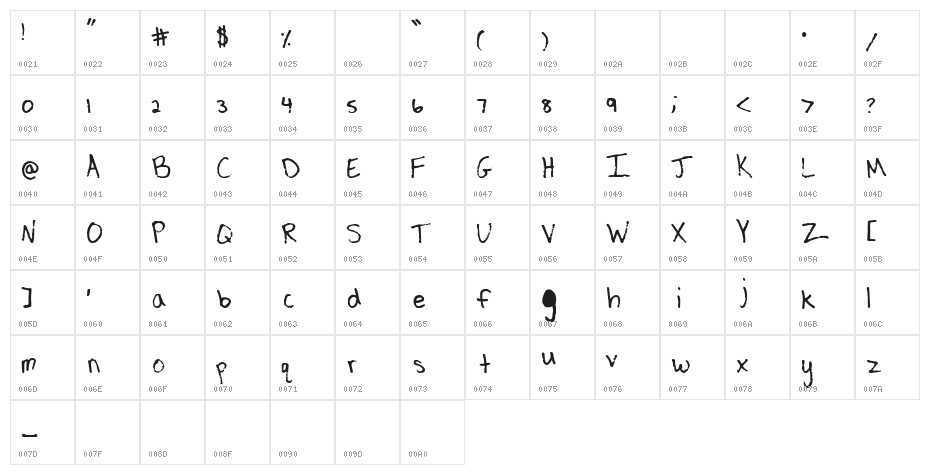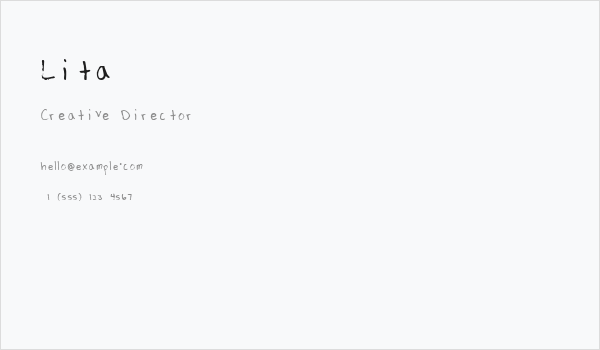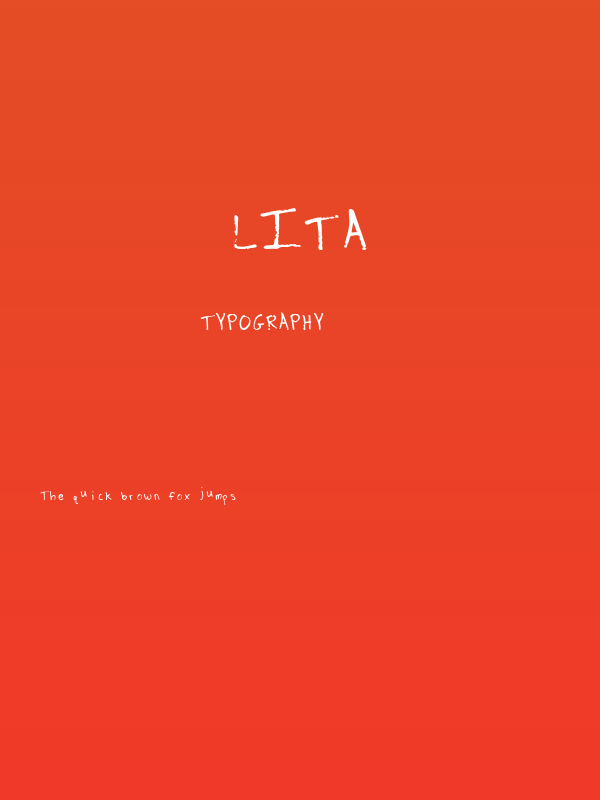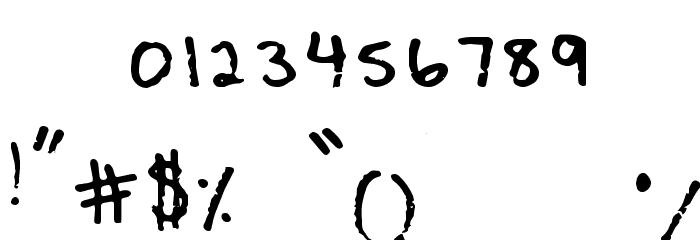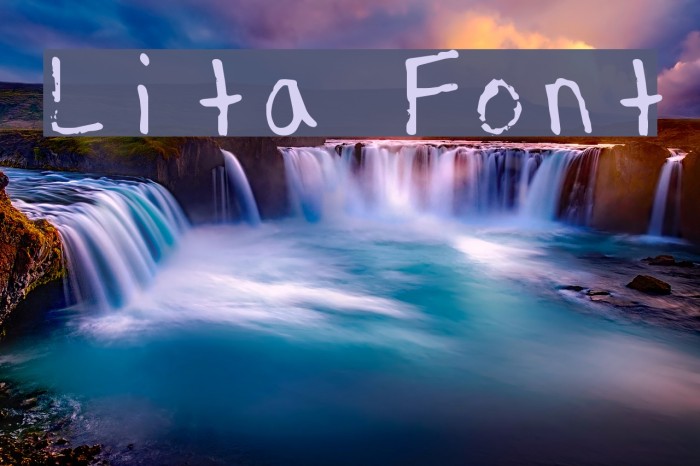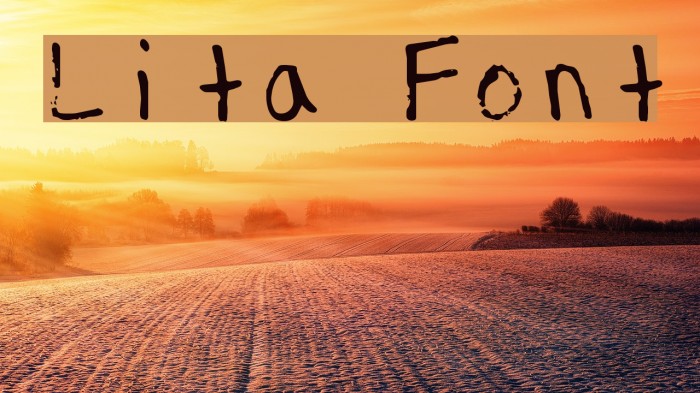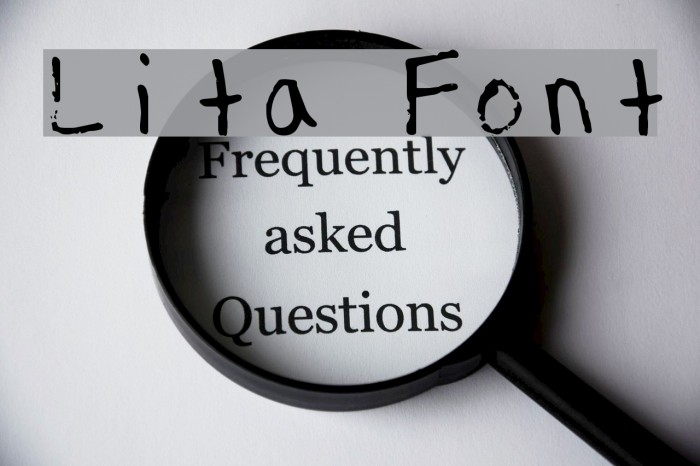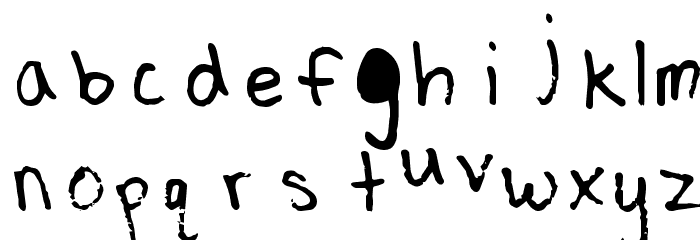
Lita Font
Lita Description
This font features a playful and artistic style, characterized by its irregular and hand-drawn appearance. The letters have a rough, textured look, giving them a unique, organic feel. The uppercase and lowercase letters maintain a consistent style, with some variations in thickness and shape that add to the font's charm. Numbers and special characters follow the same aesthetic, making the font versatile for creative projects. The overall design is informal and expressive, ideal for adding a personal touch to any text.
| Use Case | Headlines, Artistic projects, Informal text |
| Proposed Projects | Ideal for creative projects such as children's books, greeting cards, posters, and artistic branding. |